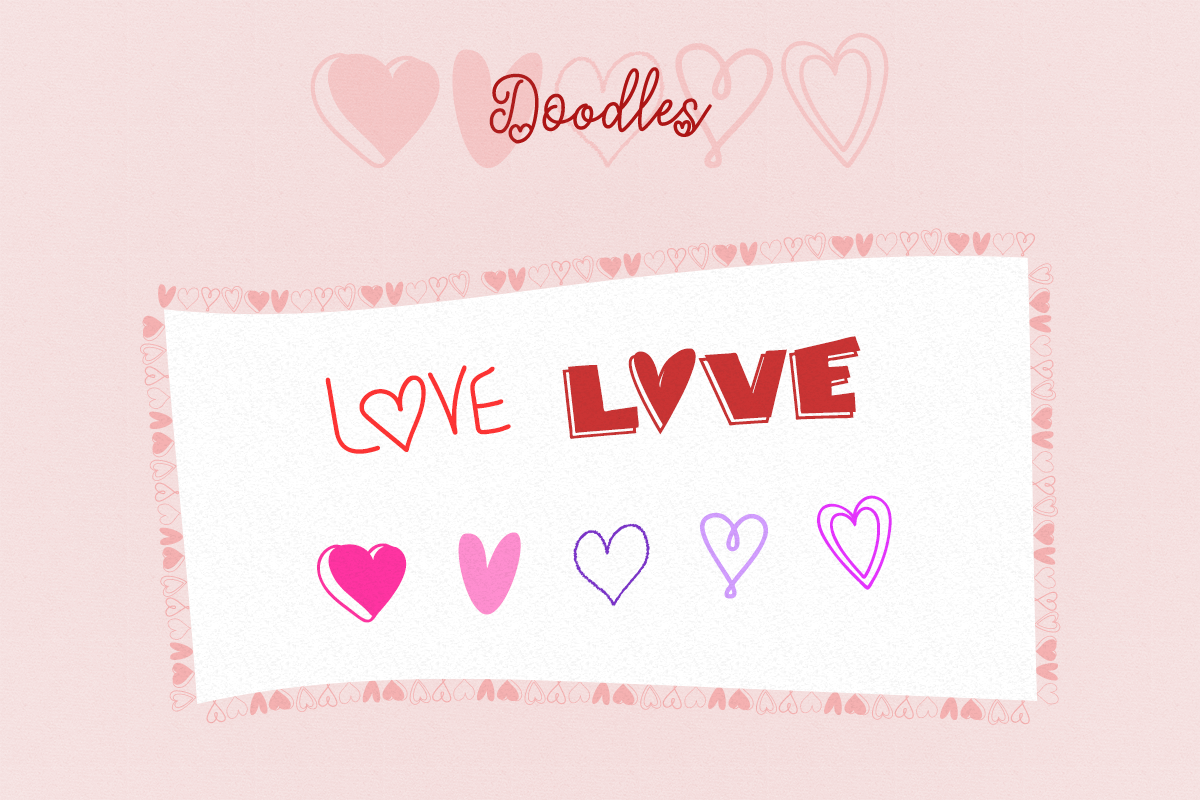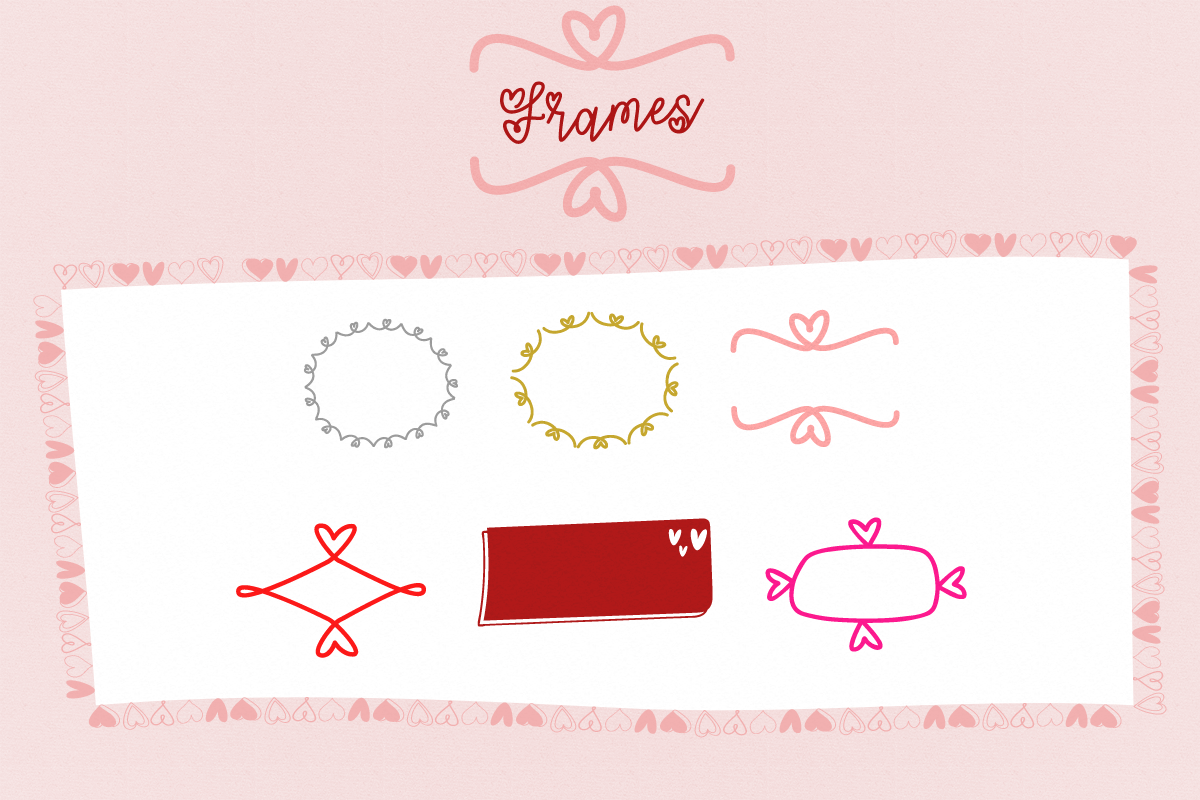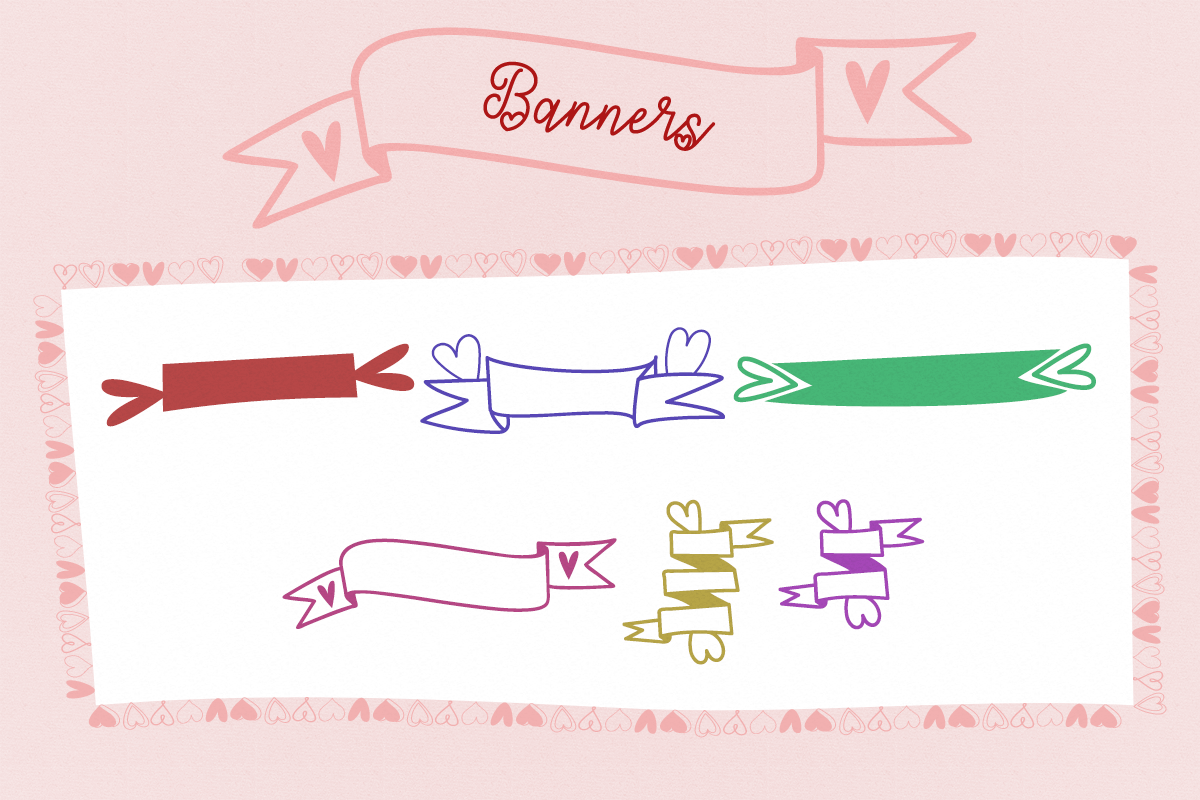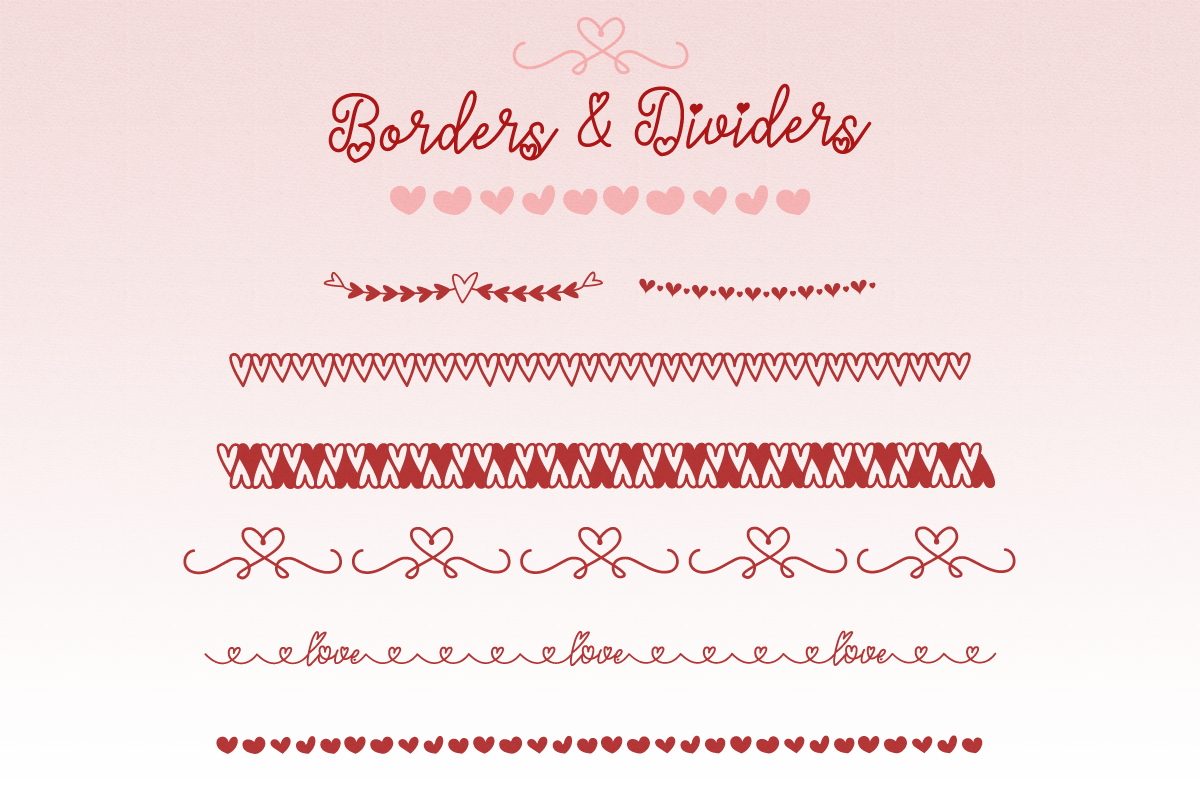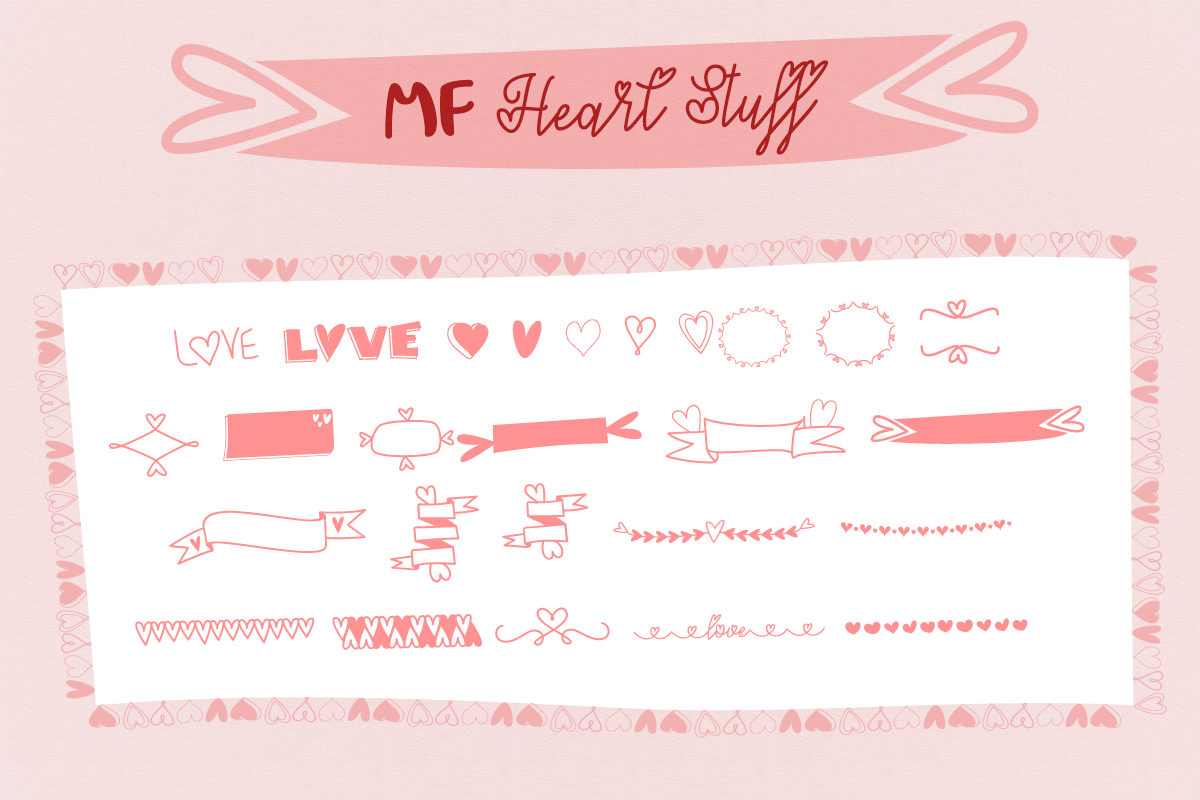
Mf Heart Stuff
MF Heart Stuff contains various doodles, frames, banners, borders and dividers. It’s the perfect font for Valentine’s Day projects and beyond!